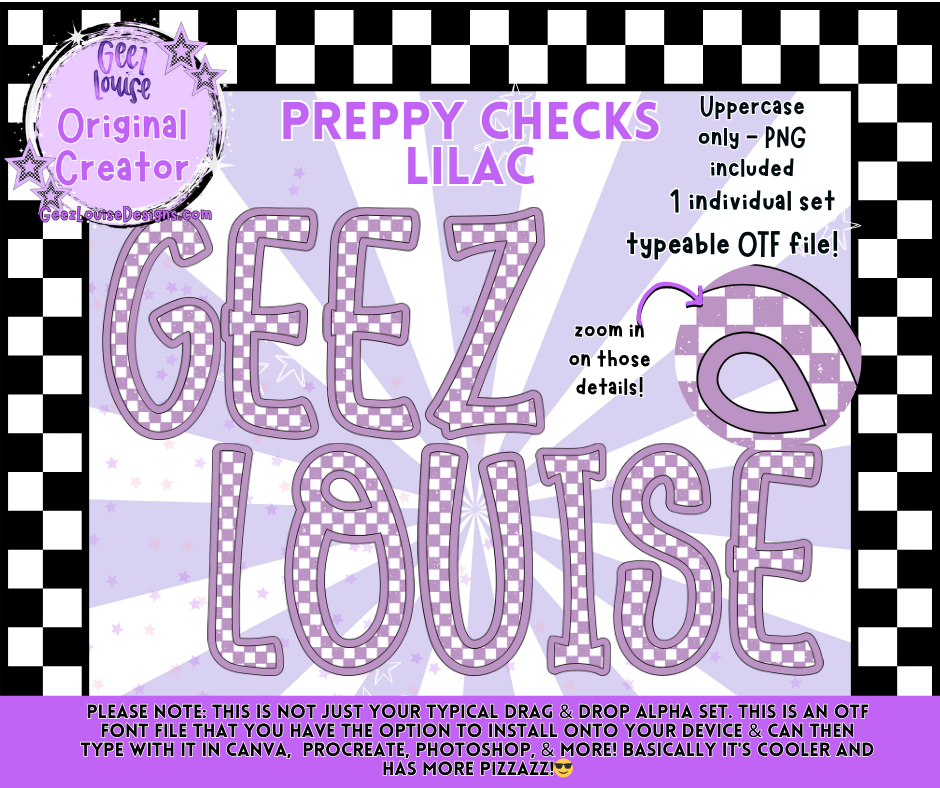
Preppy Checks Lilac Alpha Font | OTF & PNG Letters
💜 Add a soft, trendy touch to your designs with the Preppy Checks Lilac Alpha Font! 💜
This stylish set features lilac and white checkered patterns with a preppy twist—perfect for fun, girly, and spring-inspired projects that need a little pop of pastel.
• On-trend lilac preppy checks add a fresh and playful vibe.
• Great for apparel, stickers, digital graphics, sorority designs, and spring projects.